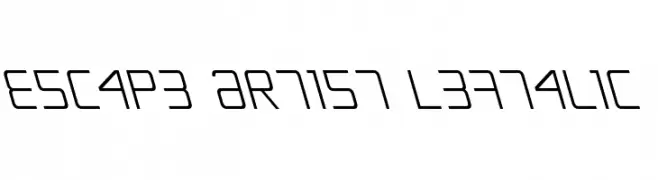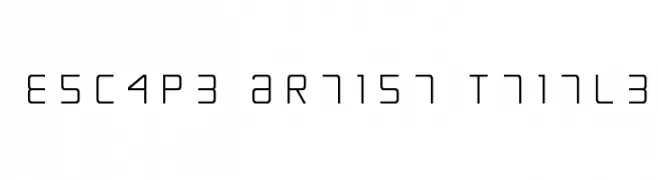
A modern, geometric font with clean lines and consistent stroke width.
A bold, italicized font with a modern, dynamic, and futuristic style.
A modern, geometric 3D italic font with outlined characters.
A modern, geometric font with a leftward slant and a sleek, technical appearance.
A futuristic, expanded italic font with geometric and dynamic letterforms.
A sleek, condensed italic font with a modern, dynamic style.
A geometric, modern, and condensed font with clean lines and sharp angles.
A modern, condensed, semi-italic font with a sleek and dynamic appearance.
A bold, italicized font with a futuristic, double-line outline style.
A sleek, geometric semi-italic font with a modern, technical feel.